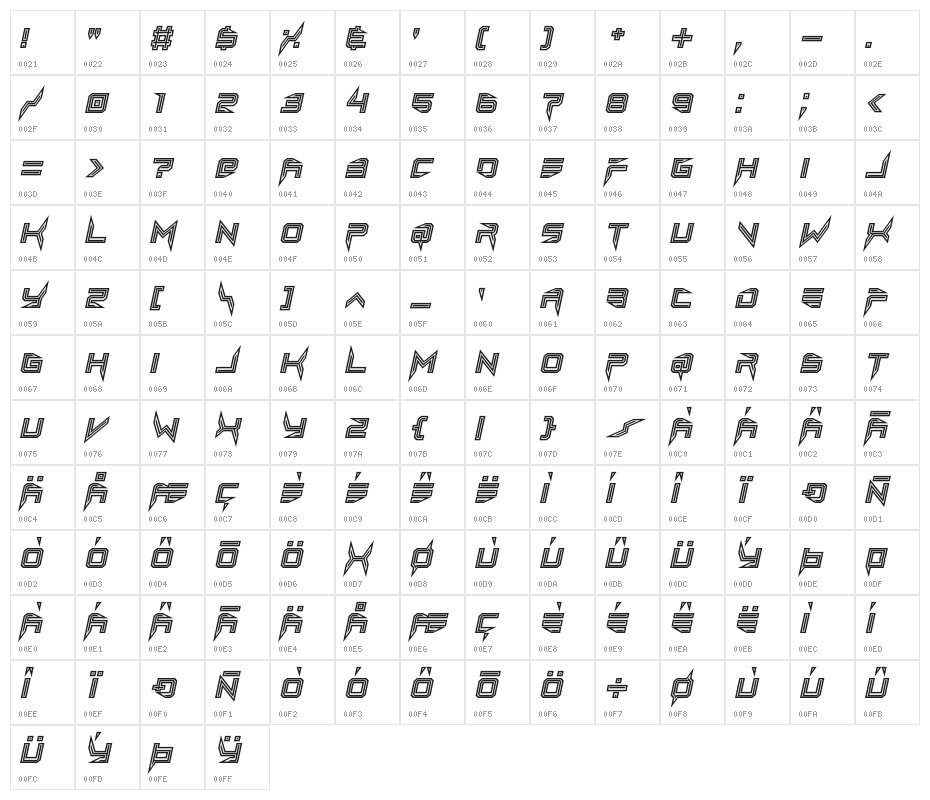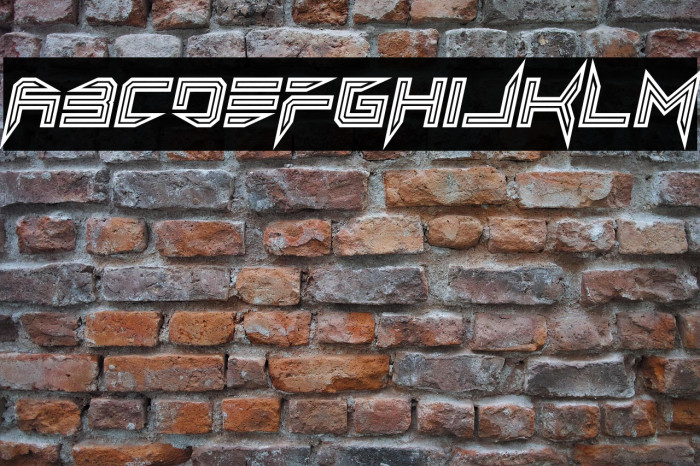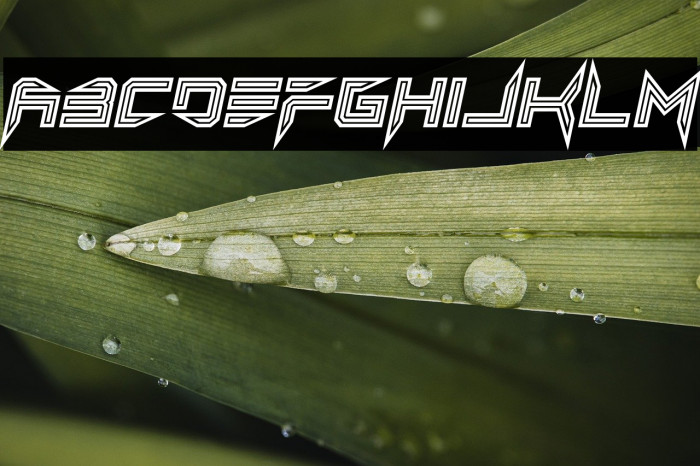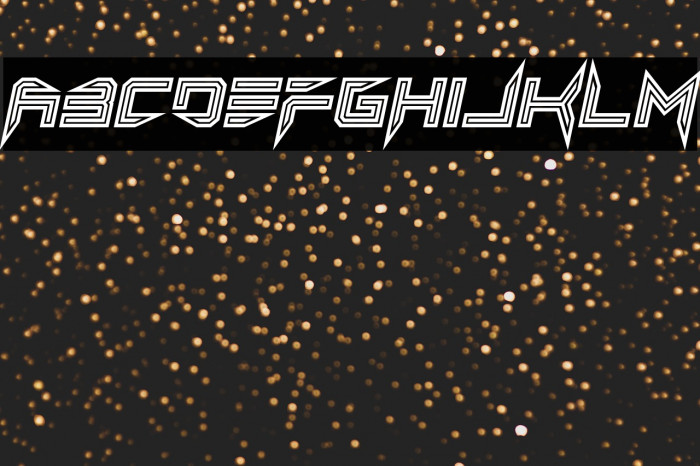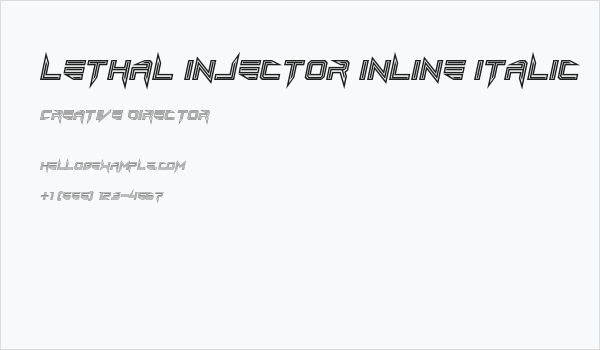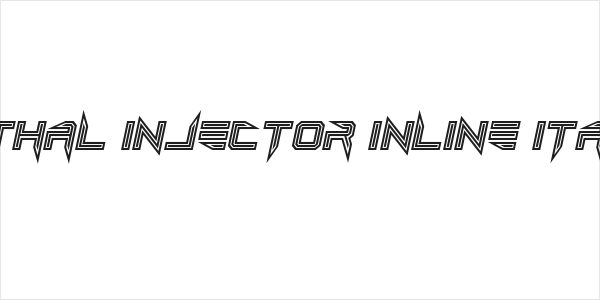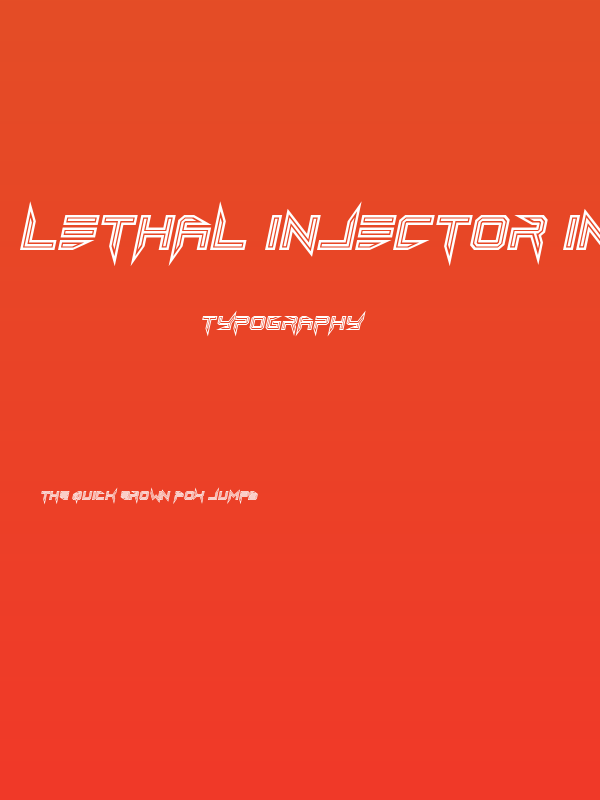
Lethal Injector Inline Italic Font
Lethal Injector Inline Italic Description
This font features a bold, angular design with sharp edges and a futuristic aesthetic. The characters are outlined with a double line, giving them a three-dimensional appearance. The italic style adds a dynamic and aggressive feel, making it suitable for attention-grabbing headlines or branding. The uppercase and lowercase letters maintain a consistent style, with unique variations in certain characters like 'A', 'R', and 'S'. Numbers and special characters are designed to match the overall theme, ensuring a cohesive look across all text elements.
| Overall Style | Futuristic, Aggressive |
| Proposed Projects | Ideal for sci-fi themed projects, video game titles, edgy branding, and posters. |